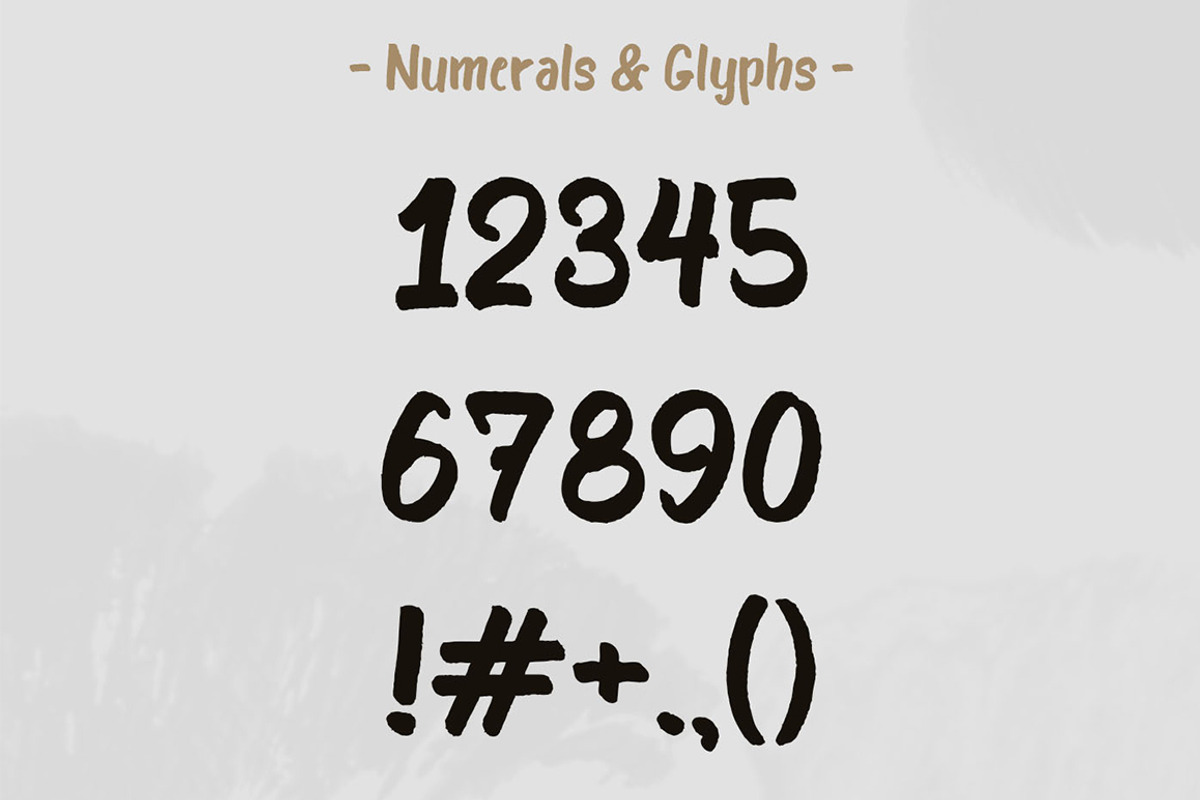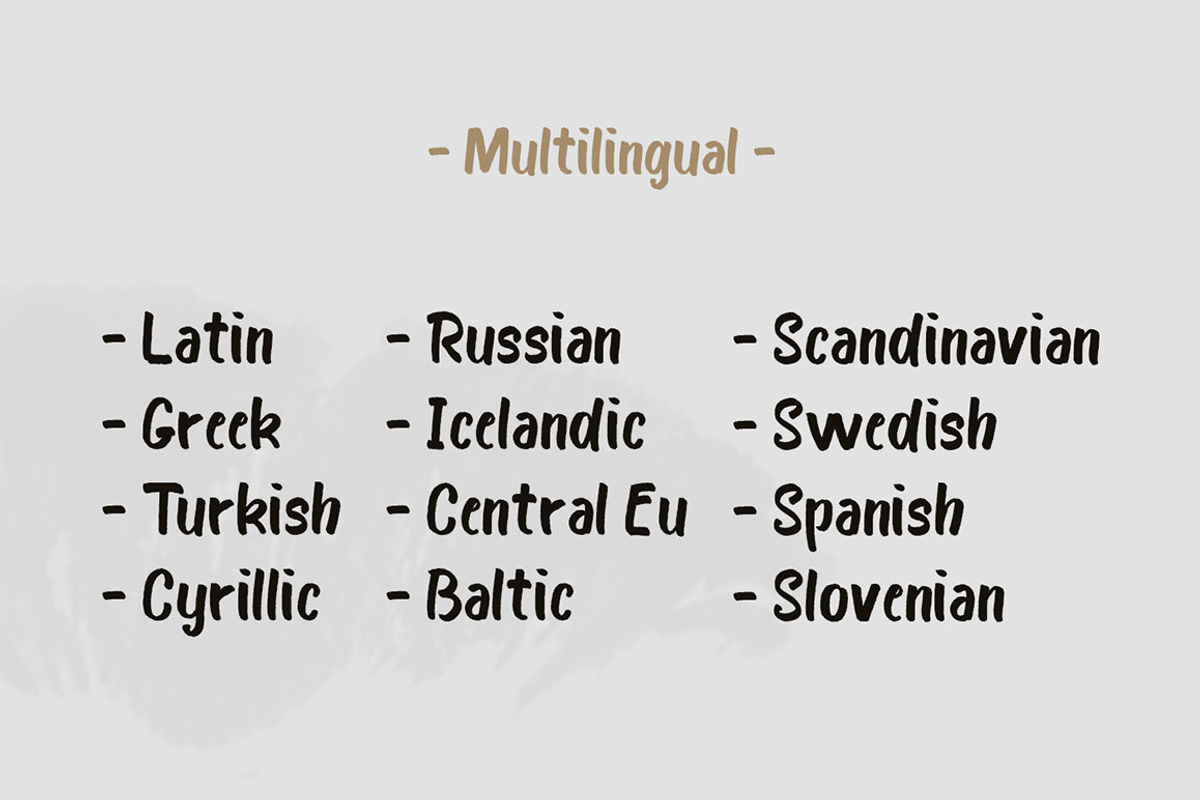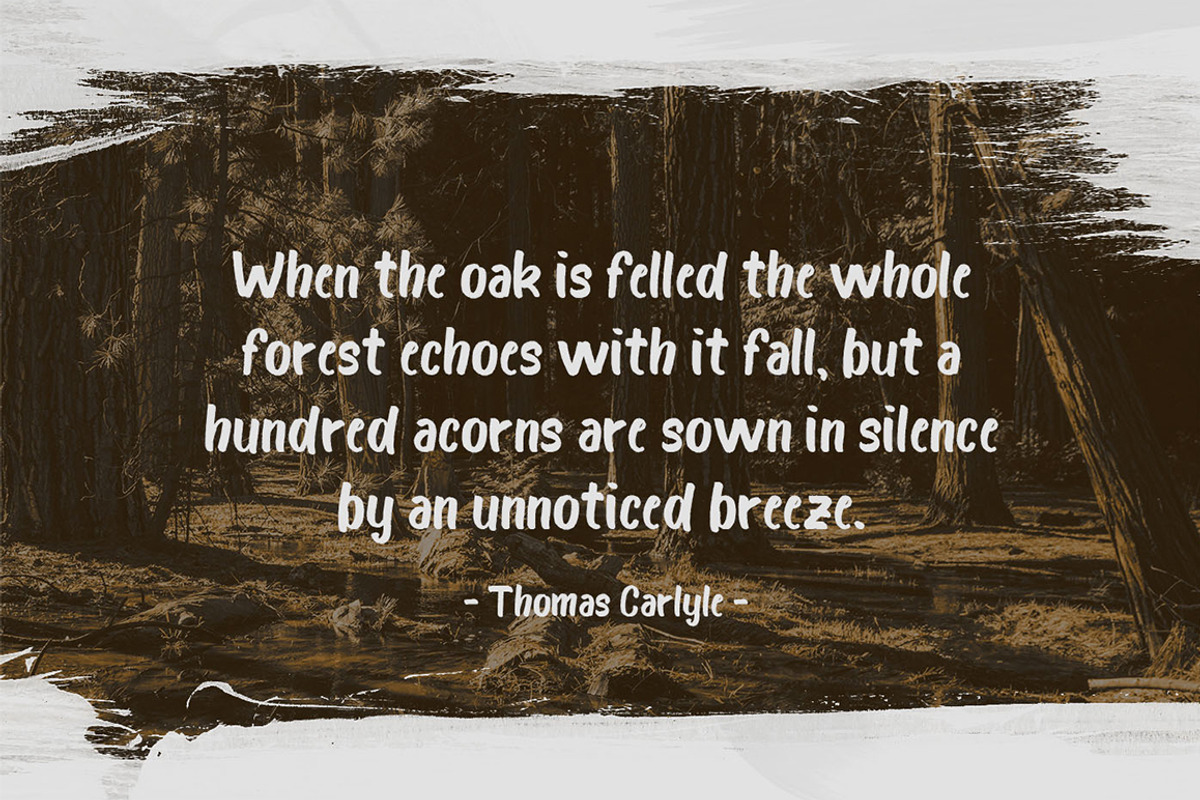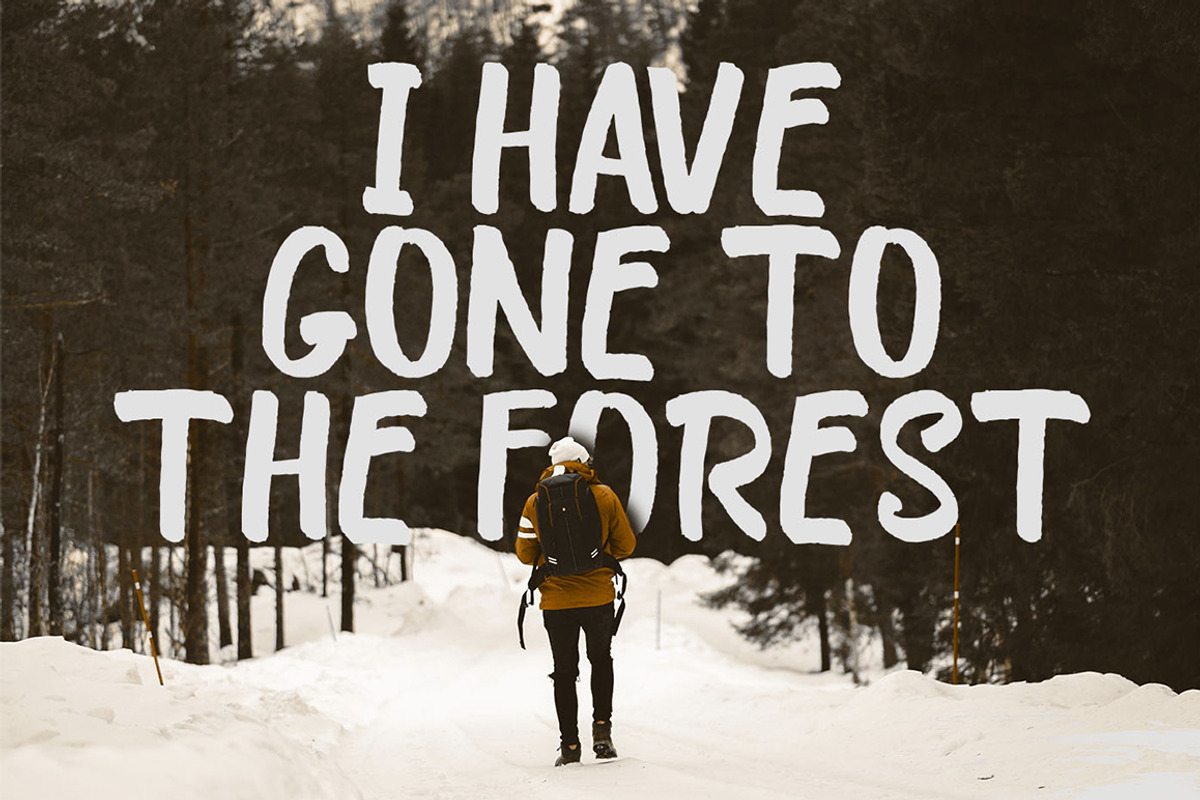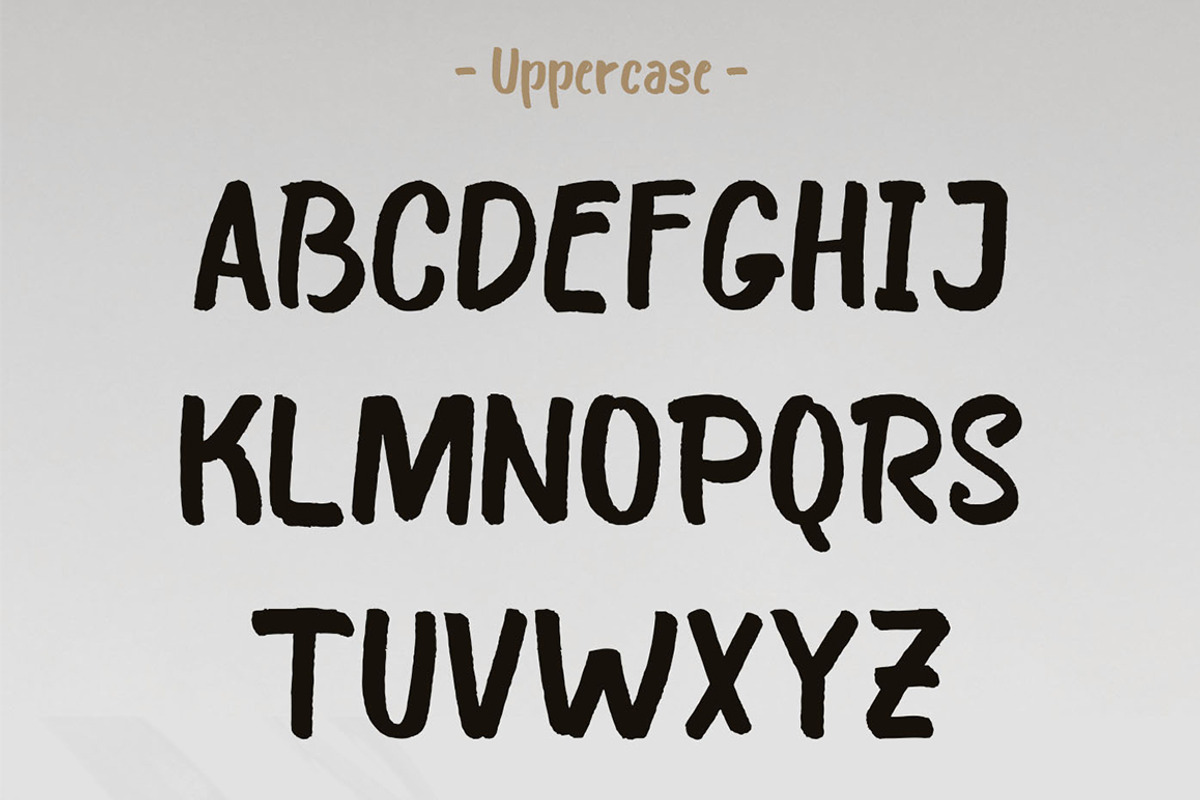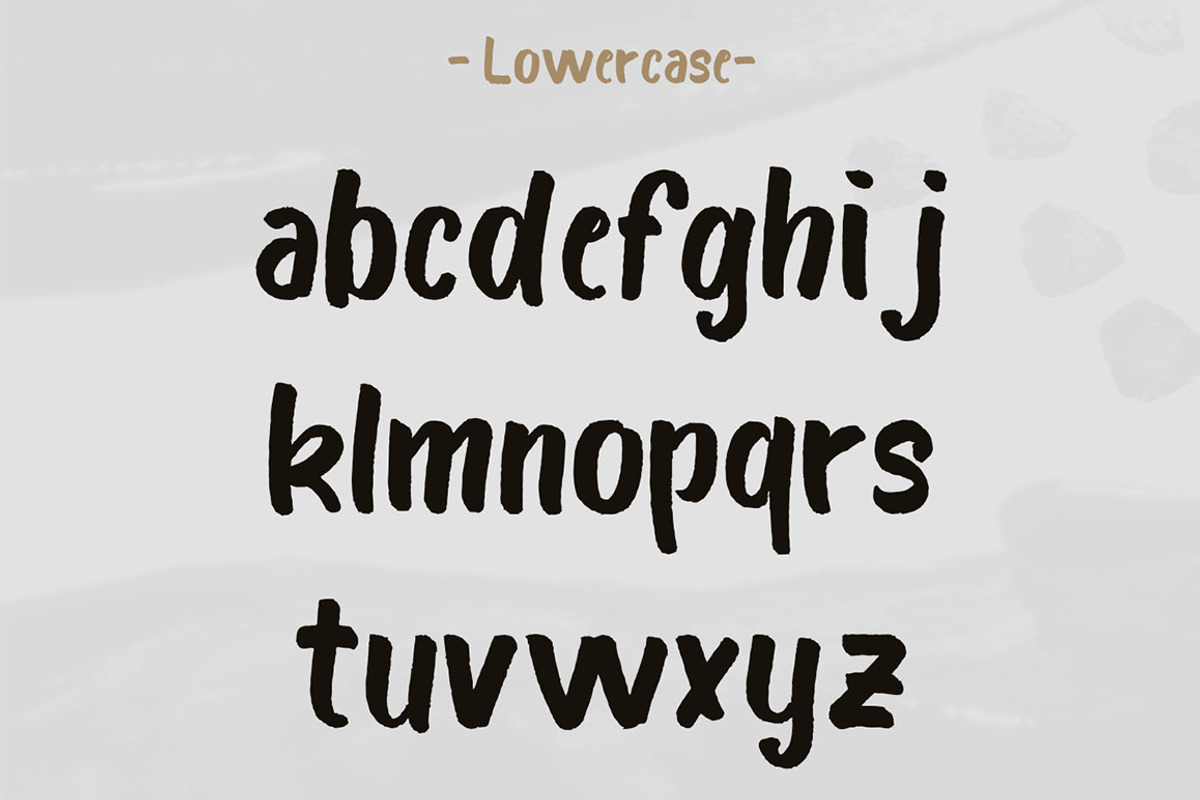
Bosk - Free Brush Font
Bosk Brush font is a vintage handmade font using a brush pen. It's suitable for everything that needs that handmade and custom feel.
It supports multi languages - Russian, Central European, Latin, Greek and more.
Bosk - Free Brush Font by BorisG fits naturally into Branding, posters, packaging, typography.